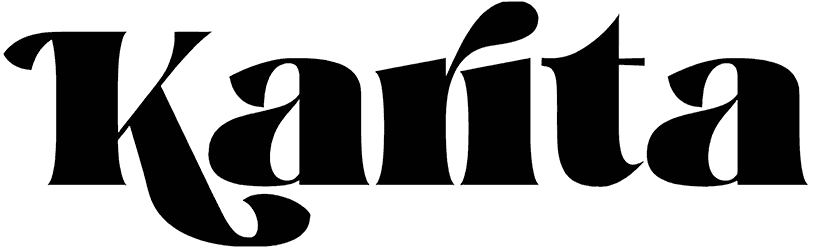
Karita Font
Every time you’re out of ideas for designing another inspired logo for beauty products, bed and breakfasts, spas, and so on, Karita can save the day like you wouldn’t believe. As a serif font with thick bodies and a round overall style, Karita can produce significant modern vibes.
That’s why it’s so good for business cards and as a brand identity. Everything about this elegant font is so perfect that you’re probably willing to overlook the absence of numbers, too.